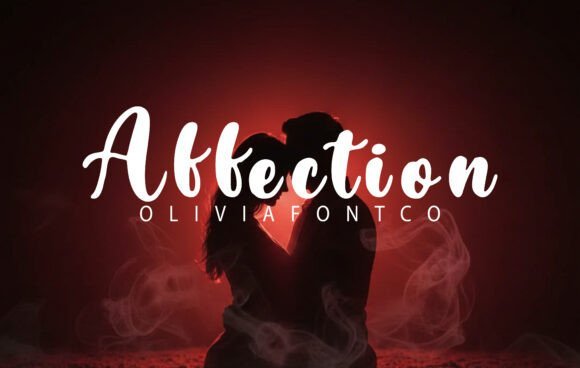
The Perfect Script for Expressing Love and Devotion
As a designer, you’ve probably been there – staring at a blank page, struggling to find the perfect font to convey the emotions and sentiment behind your project. It’s a moment of pure creative frustration, but also an opportunity to discover something truly special. And for me, that discovery was the Affection Font, a romantic and expressive handwritten script font that perfectly captures the warmth and genuine emotion of love.
Characterized by thick, smooth strokes and a lively, flowing baseline, the Affection Font is more than just a typeface – it’s a signature style that exudes confidence, authenticity, and invitation. Whether you’re designing a wedding invitation, a Valentine’s Day card, or a custom gift, the Affection Font is the perfect choice for adding a strong, heartfelt touch to your work.
Affection Font Key Features
- Font Style: Script font with elegant and cursive design, ideal for creating a romantic and personal feel in typography.
- Unique Characteristics: The font features intricate details, swashes, and flourishes, adding a touch of elegance and sophistication to any design.
Review of Affection Font
Overall, I’d say the Affection Font is a sweet addition to any design project, but it’s not without its quirks. Here’s what I like and dislike about it:
- Soft and playful curves that evoke a sense of warmth and friendliness.
- Beautifully crafted ligatures that add a touch of elegance to text.
- Good readability, even at smaller font sizes.
- May not be suitable for formal or professional projects due to its playful nature.
- Some characters may be difficult to distinguish from one another, particularly for those with visual impairments.
- Lack of language support for non-Latin scripts.
Despite its limitations, I think the Affection Font has a lot of potential for creative and personal projects, like social media graphics, children’s books, or wedding invitations. Its unique charm can add a special touch to any design. However, I would not recommend it for large-scale corporate projects or websites that require high readability.
For the best results, use the Affection Font in combination with other creative elements, such as illustrations or graphics. Experiment with different font sizes and styles to create visual interest. Consider using the font in bold or italic styles to add emphasis.
The Affection Font is perfect for creating romantic, whimsical, or playful designs, such as:
– Wedding invitations or stationery
– Children’s book illustrations
– Social media graphics or ads
– Personalized gifts or cards
Alternatives to Affection Font for Designers
Great Vibes is a modern, cursive script font that exudes a sense of elegance and sophistication. It’s perfect for designers who want to add a touch of luxury and refinement to their projects. When to use: Wedding invitations, luxury branding, and high-end advertising.
Comparison to Affection Font: Great Vibes is more formal and less playful than Affection Font, making it a better choice for high-end projects. While Affection Font has a more casual, handwritten feel, Great Vibes is more polished and sophisticated.
Carolyna Pro is a beautiful, elegant script font that’s perfect for designers who want to add a touch of sophistication and refinement to their projects. It’s great for titles, headings, and body text. When to use: Fashion branding, luxury packaging, and high-end editorial design.
Comparison to Affection Font: Carolyna Pro is more elegant and refined than Affection Font, making it a better choice for high-end projects. While Affection Font has a more casual, handwritten feel, Carolyna Pro is more polished and sophisticated.
Dancing Script is a beautiful, elegant script font that’s perfect for designers who want to add a touch of sophistication and whimsy to their projects. It’s great for titles, headings, and body text. When to use: Fashion branding, wedding invitations, and high-end advertising.